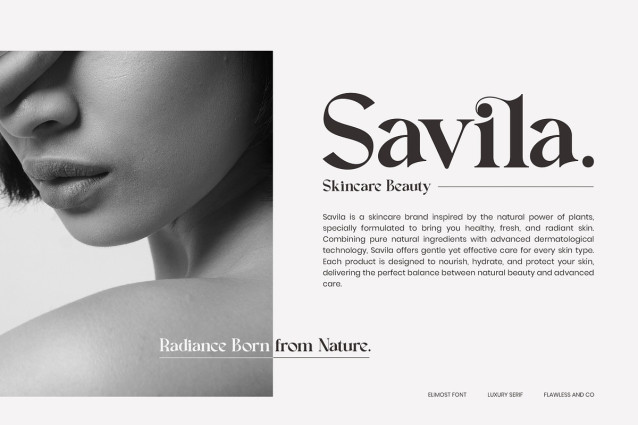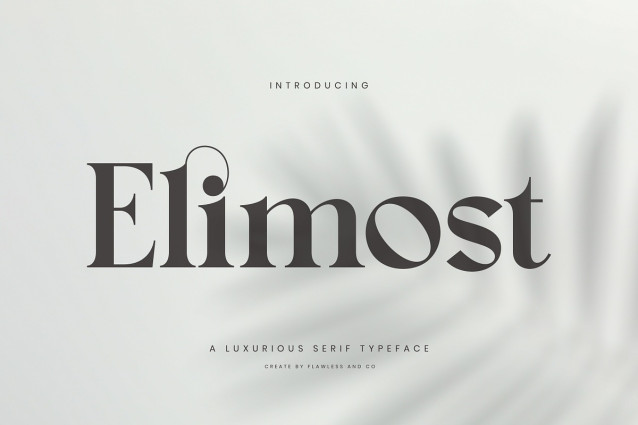
Elimost Font
Elimost Font is a luxury serif typeface that embodies sophistication, elegance, and timeless design. With its refined letterforms, graceful curves, and striking contrasts, Elimost is crafted to bring a premium and stylish feel to any project. Its luxurious aesthetic makes it the perfect choice for high-end branding, fashion editorials, elegant invitations, and upscale packaging. Designed with versatility in mind, Elimost balances modern beauty with classic charm, allowing designers to create works that stand out with confidence and refinement. Whether used for logos, headlines, or editorial layouts, Elimost delivers a sense of exclusivity and artistry that resonates across various design needs.